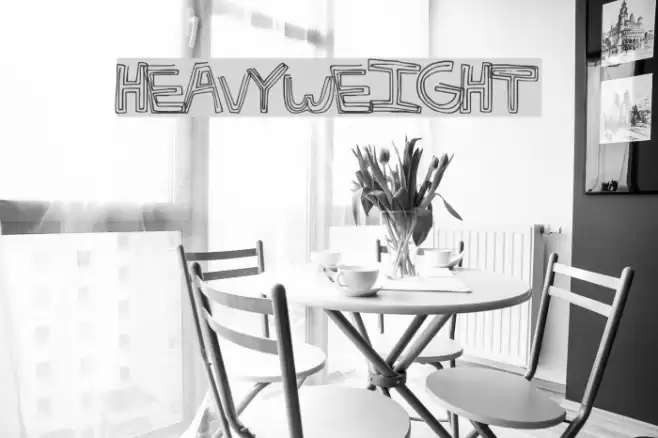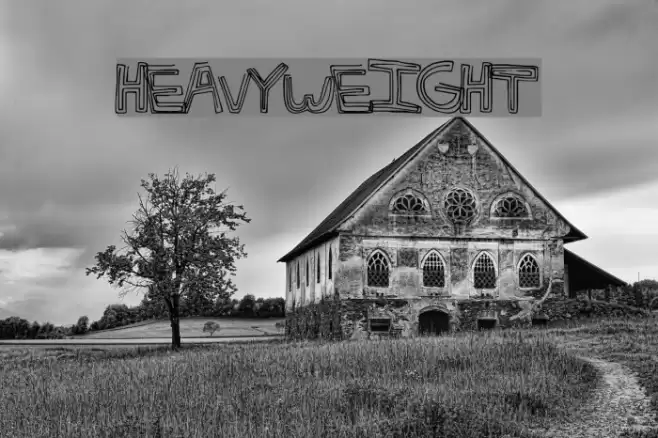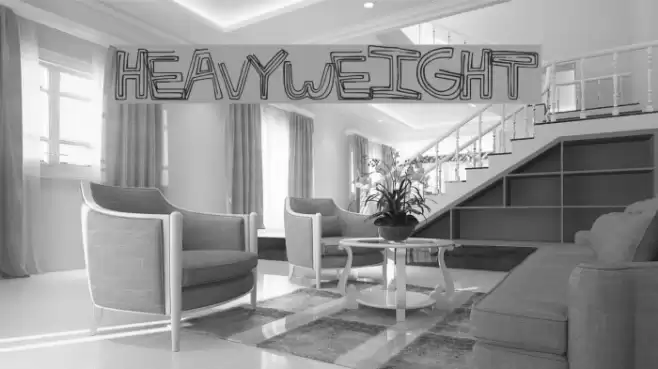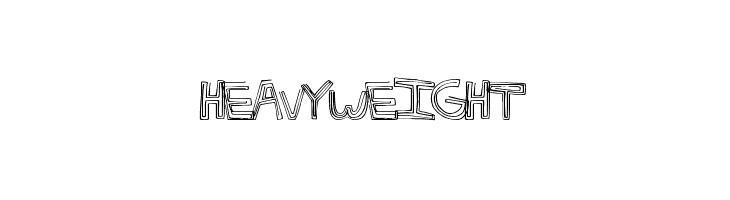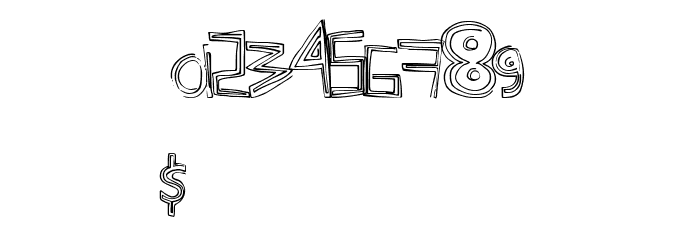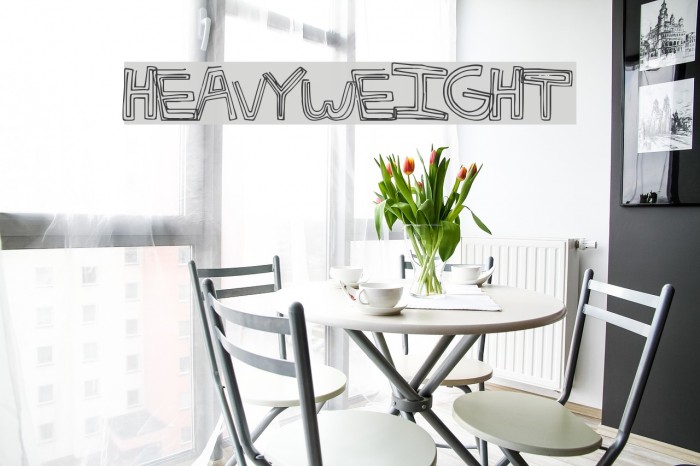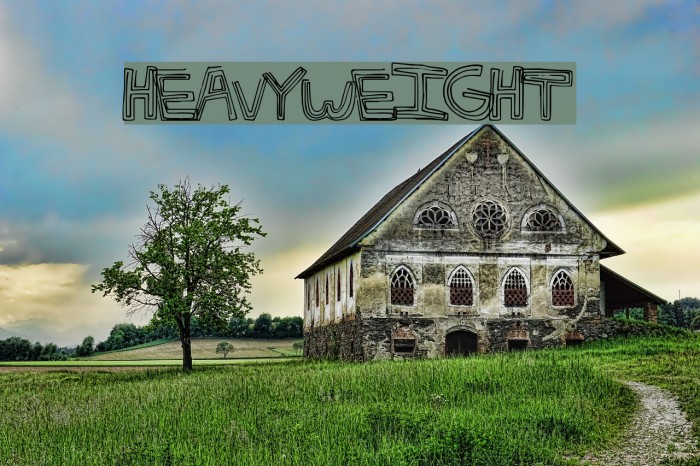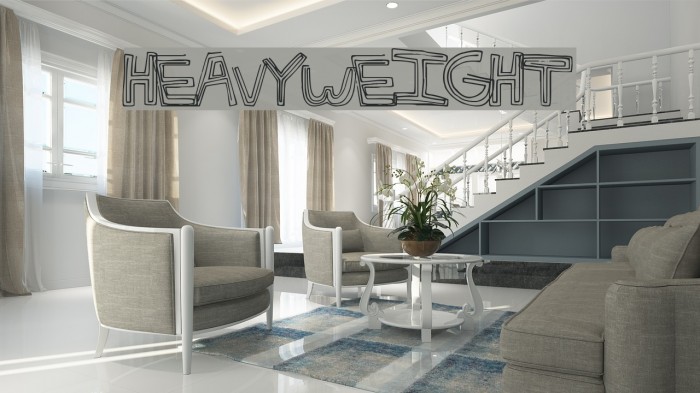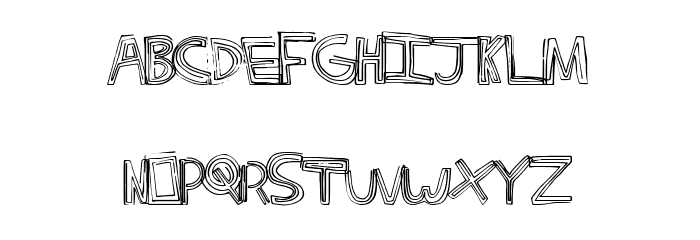
HeavyWeight Font
HeavyWeight Description
This font features a bold, hand-drawn style with a playful and artistic flair. Each character is outlined with a thick, sketch-like line, giving it a dynamic and energetic appearance. The letters are uppercase and lowercase, with numbers and a few special characters included. The irregularity in the strokes adds a unique, informal touch, making it ideal for creative projects. The font's design suggests a sense of movement and spontaneity, perfect for capturing attention in a fun and engaging way.
A bold, hand-drawn font with sketch-like outlines and playful character from Uncategorized fonts.
- Proposed Projects: Ideal for posters, children's books, creative branding, and playful graphic designs.
- Overall Style: Playful, Artistic, Energetic
- Use Case: Headlines, Posters, Creative Projects